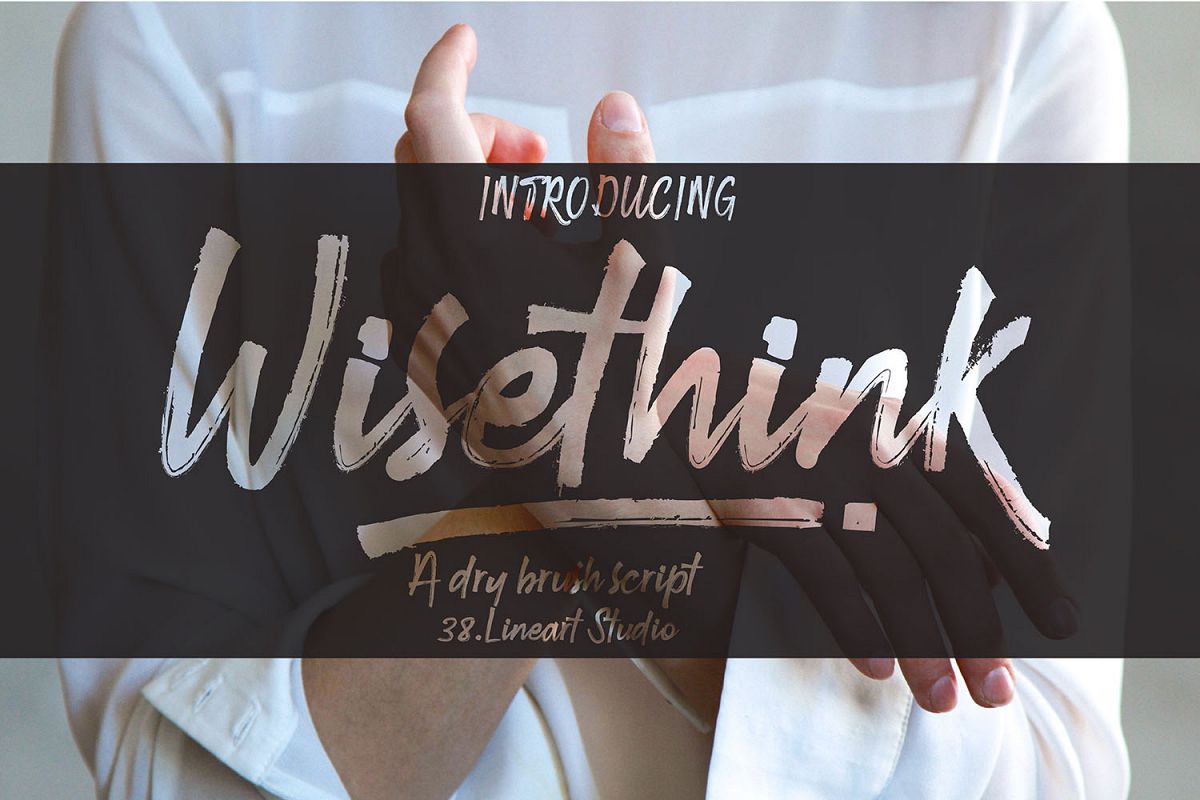
Wisethink
Wisethink – Brush Font with Swashes Wisethink is a casual dry brush stroke font, ideal for expressing fun and a relaxed vibe in your designs. This is a great option for giving your designs a personal and natural touch. Every letter we make has always maintained its distinctive style. We hope you are all happy with our latest font. The Wisethink glyph containing A-Z Uppercase, a-z Lowercase , numeric and punctuation, please message me if you are ensure of any language support. Thats it! I really hope you enjoy it- please do let me know what you think, comment and likes are always hugely welcomed and apreciated. More importantly, Please don’t hesitate to drop me a message if you have any issues of queries. Thank You. lineart